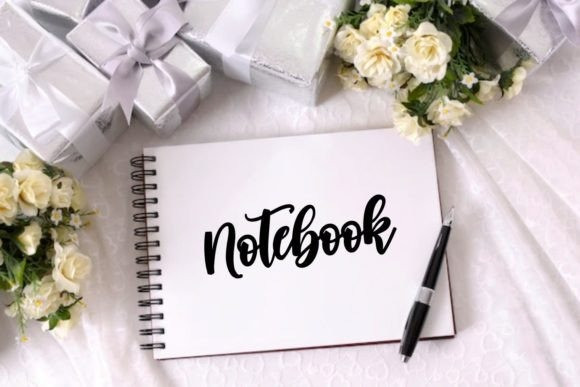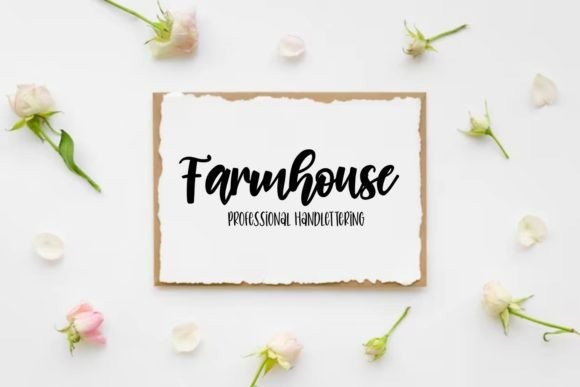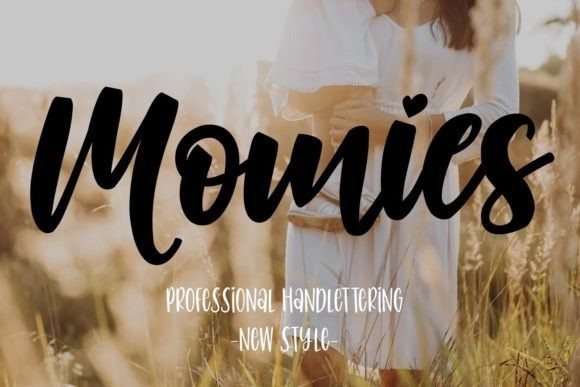
Momies Font
Momies Script Font. This font is made with a bold and beautiful design, this font is specifically for your beloved mother. You can use this font for your project needs and other work